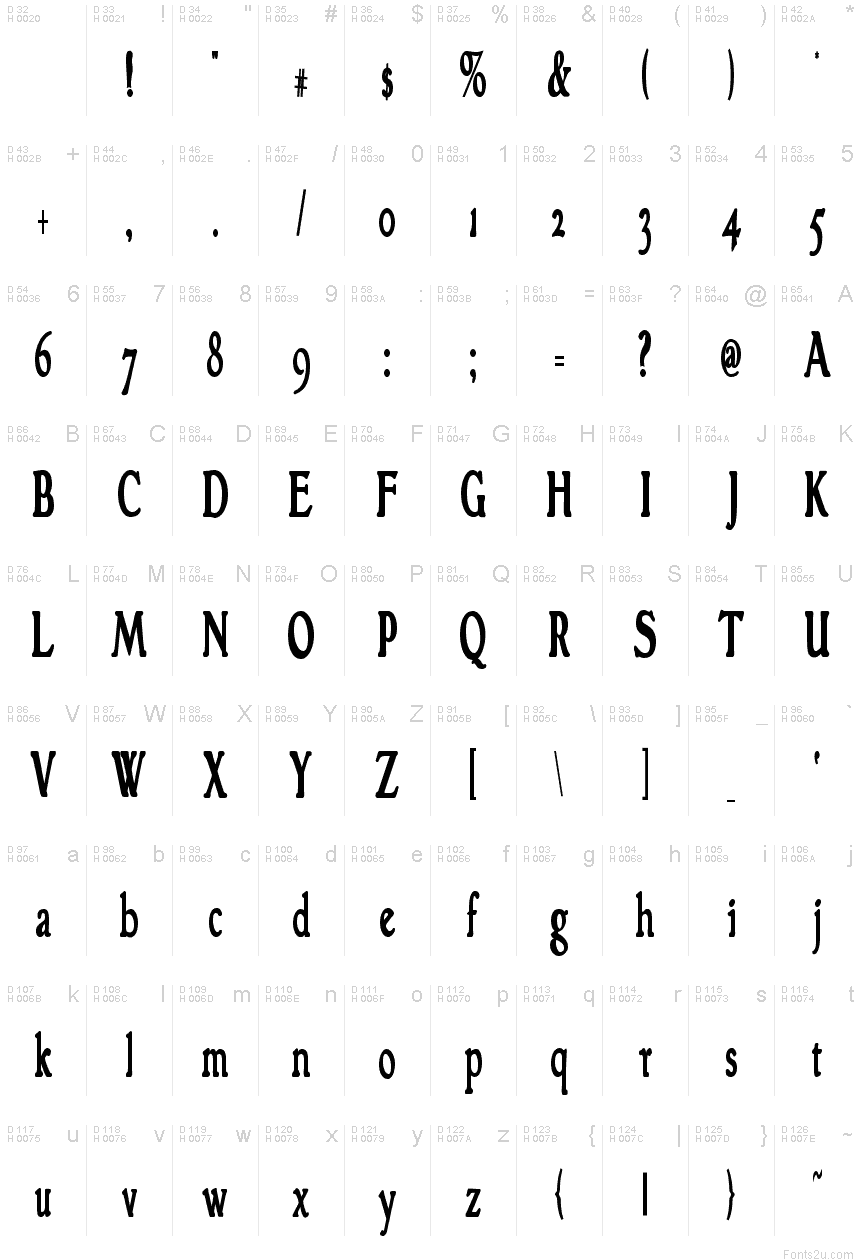
GranthamCondensed Bold
Grantham Condensed Bold font by PJL is a free condensed serif typeface with a wonderfully inky, hand-printed feel. The tall, narrow letters pack a lot of weight into tight spaces, while the rounded curves and slightly irregular strokes give it a warm, vintage poster vibe rather than a stiff, bookish tone. It’s the kind of bold serif that grabs attention in a small footprint and still feels friendly.
Using Grantham Condensed Bold, headlines and labels snap into place without needing huge line lengths or fussy tracking tweaks. This free font shines on posters, book covers, retro branding, beer or coffee packaging, signage, and event flyers where you want chunky impact with a crafted edge. For a balanced layout, pair it with a clean geometric sans at smaller sizes so the bold, condensed forms stay center stage.